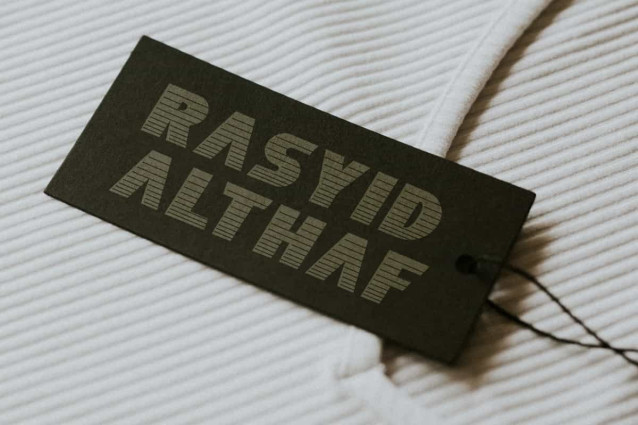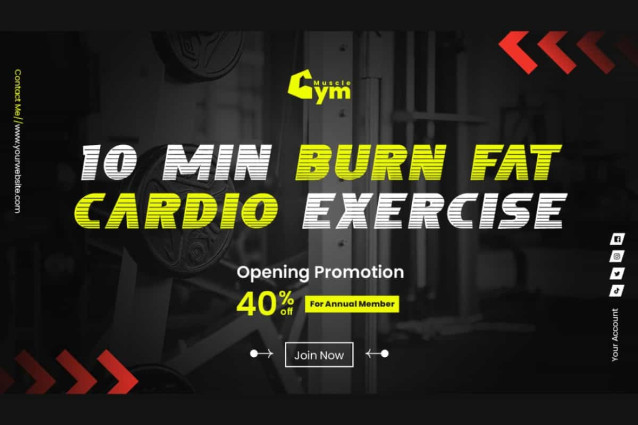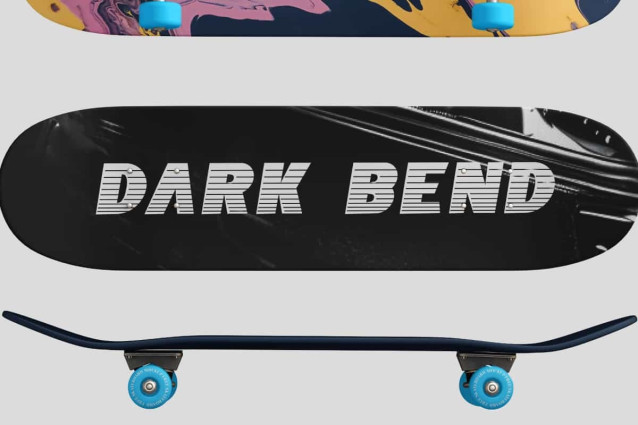
Dark Bend Font
Dark Bend Font is a modern unique spaceship inspired style font with a special lines concept that can convey an impressive modern charm. The uniqueness of this font lies in the lines that run across each character, giving it a different appearance. It will be great for poster, label, signage, stationery, custom design, product packaging, quotes, brand image, advertisement, invitation, marketing material, website page, and more!
Dark Bend Font includes a full set of ALL CAPS for Uppercase and Lowercase Letters, Numerals, and large range of Punctuation. This modern font will be suitable for various industries, such as sports, automotive, fashion, game, barber shop, cafe, event or festival, photography, printing, publishing, etc.